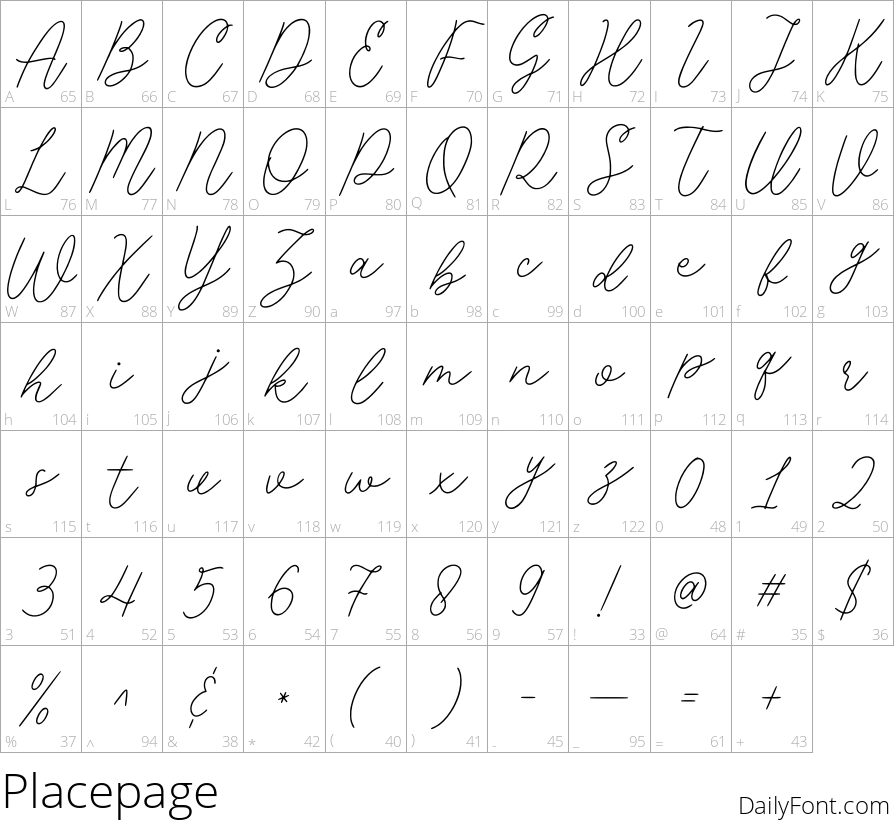
Placepage
Placepage is a beautifully crafted, dainty script font designed for those seeking elegance in their designs. With its thin lettering and flowing style, Placepage adds a touch of sophistication to various creative projects, from wedding invitations to branding materials. Its charming curves and gentle aesthetics make it perfect for any application that demands a lovely, romantic touch.
Whether you’re designing a personal blog, a gift card, or even a sophisticated event poster, Placepage gracefully harmonizes with your vision. Its versatility ensures that it pairs well with other typefaces, offering endless possibilities for creative expression. By choosing Placepage, you elevate your work, providing a unique and memorable experience that captivates your audience. Discover the enchanting world of Placepage and let your creations speak of beauty and style.